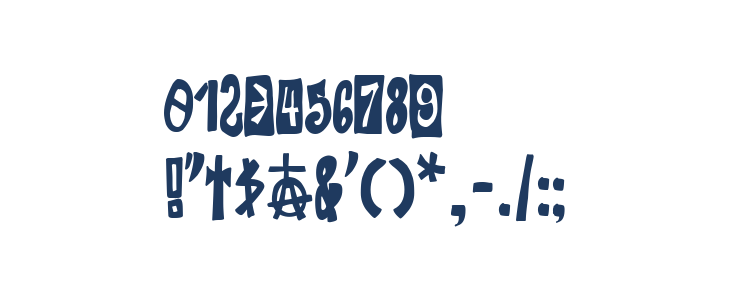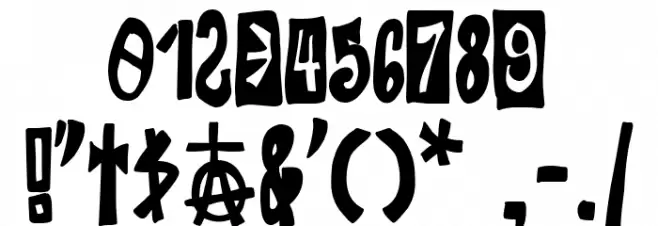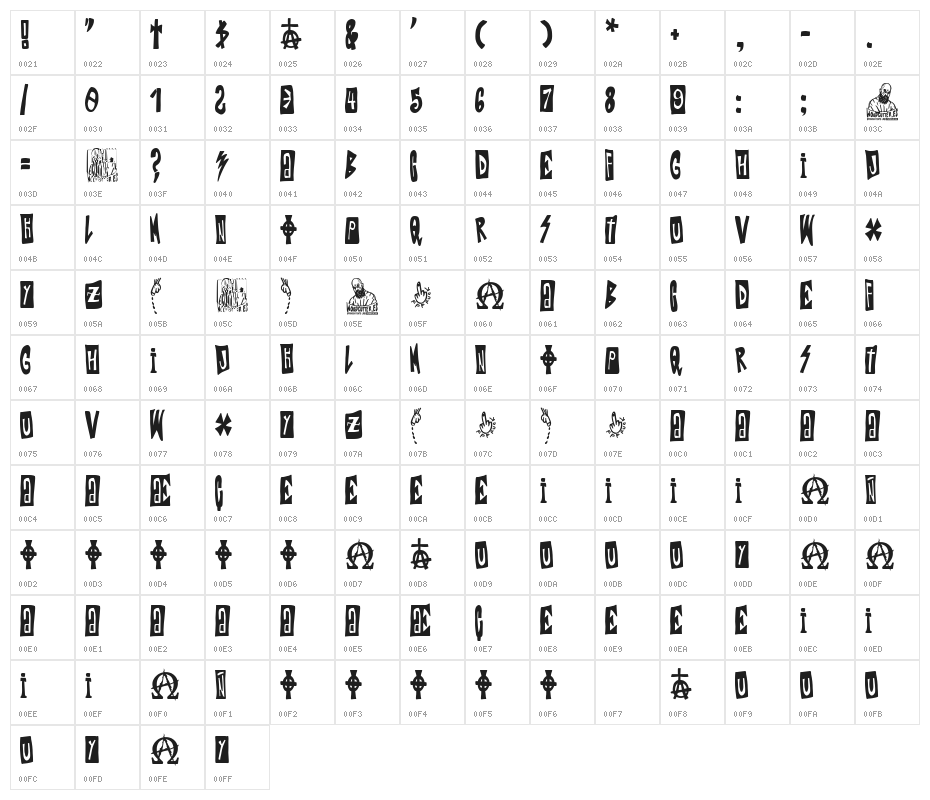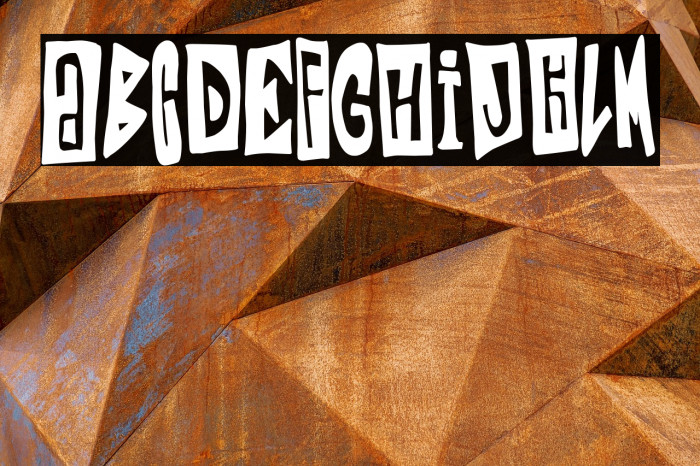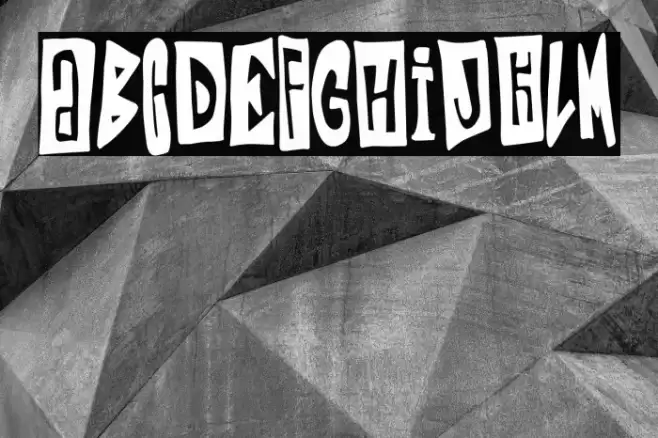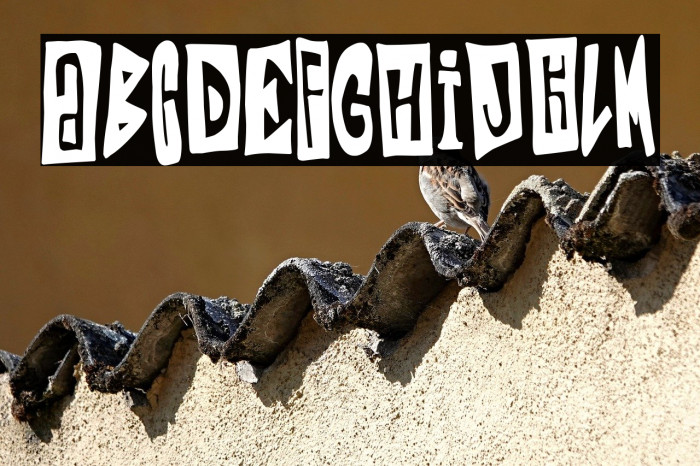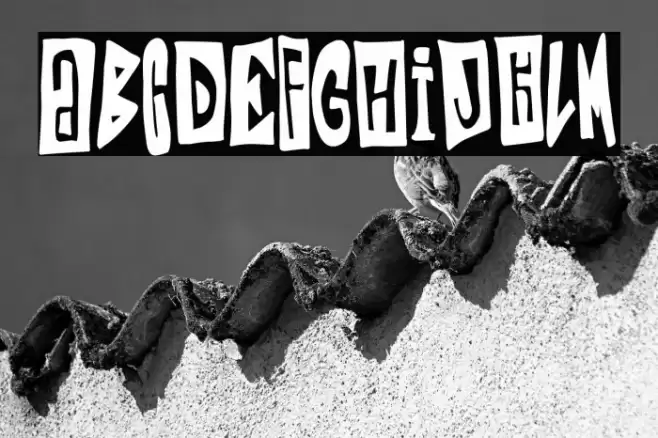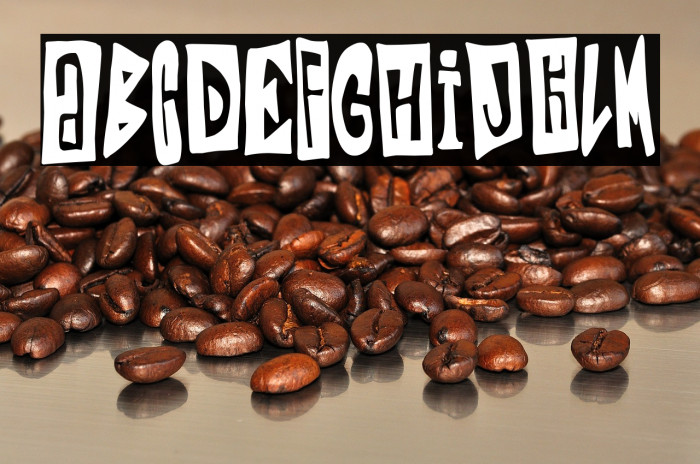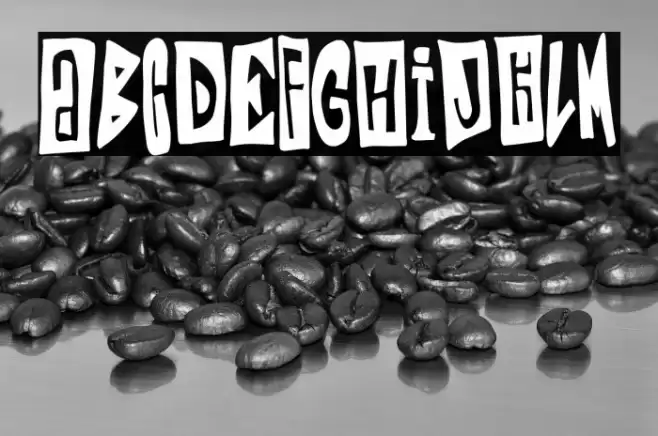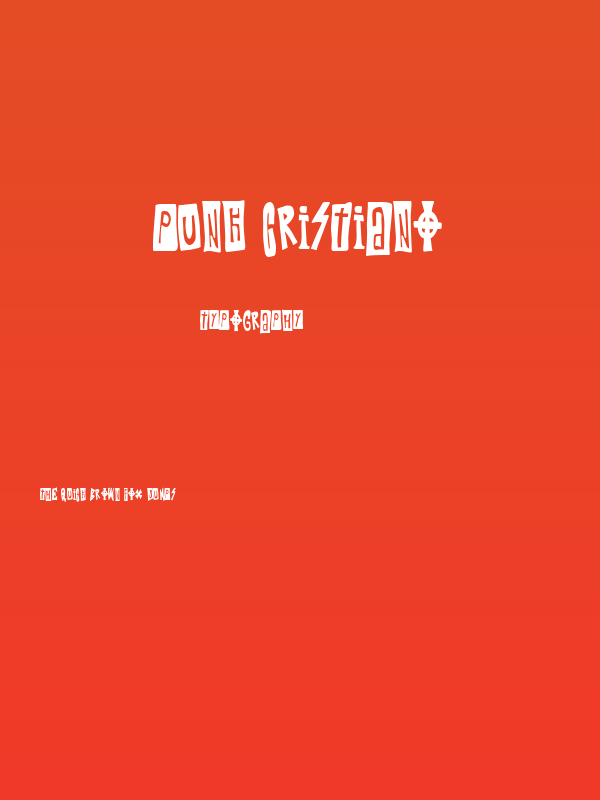
Punk Cristiano Font
Punk Cristiano Description
This font exudes a bold and rebellious spirit, characterized by its irregular and jagged letterforms. Each character is uniquely crafted with a punk aesthetic, featuring sharp angles and uneven strokes that convey a sense of raw energy and defiance. The uppercase and lowercase letters maintain a consistent style, with some letters enclosed in rectangular shapes, adding to the chaotic yet structured appearance. The numbers and special characters follow the same design ethos, ensuring a cohesive look across all elements. This font is perfect for projects that aim to capture an edgy, unconventional vibe.
| Overall Style | Punk, Edgy, Rebellious |
| Use Case | Logos, Posters, Album Covers |
| Proposed Projects | Ideal for music album covers, posters, streetwear branding, and any design needing a punk or rebellious theme. |